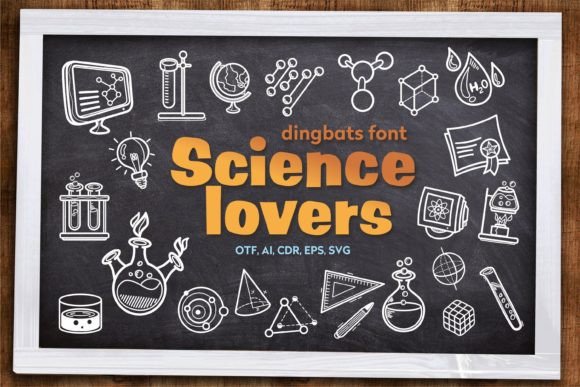
Introducing Science Lovers Font - the ultimate choice for those seeking the best font for a modern logo! Created by the talented onoborgol, this cool and creative dingbats font is here to revolutionize your design game. Get ready to elevate your projects with its captivating and unique style.
Science Lovers Font is more than just a collection of symbols; it's a gateway to endless possibilities. With its vast assortment of meticulously crafted icons, this font empowers you to express your ideas in a visually stunning and meaningful way. Whether you're designing a logo, poster, website, or any other creative masterpiece, Science Lovers Font will effortlessly add that extra spark.
Imagine the impact of incorporating this font into your next project. Each symbol has been carefully designed to evoke emotions and connections. From molecules and atoms to lab equipment and scientific formulas, Science Lovers Font covers a wide range of scientific themes, making it perfect for projects related to education, research, technology, and beyond.
By downloading Science Lovers Font, you'll unlock a world of inspiration and captivate your audience with its unique charm. Let your designs speak volumes as you effortlessly communicate complex ideas through visually stunning icons. With this font, your creativity knows no bounds.
But what sets Science Lovers Font apart from the rest? Its versatility. Not only does it seamlessly blend with modern designs, but it also adds a touch of sophistication and uniqueness that is hard to find elsewhere. Stand out from the crowd and make a lasting impression on your target audience with this one-of-a-kind font.
In addition to its aesthetic appeal, Science Lovers Font is incredibly user-friendly. Its intuitive design and easy accessibility allow both beginners and experienced designers to make the most of its endless potential. No need to spend hours searching for the perfect icon or symbol; Science Lovers Font has got you covered.